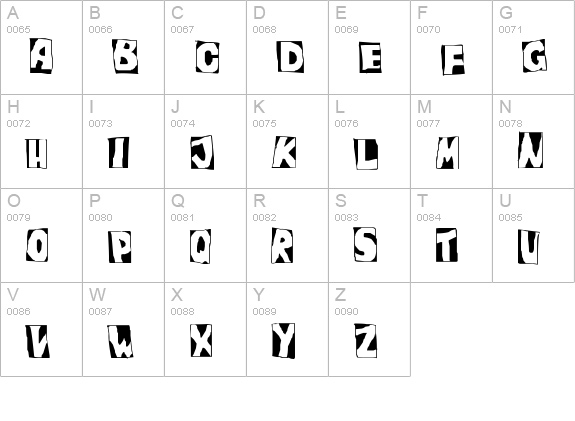
Peep Show Font Details
Introducing Peep Show, a captivating and versatile font that will bring a touch of whimsy to your designs. With its unique blend of playful curves and elegant strokes, this font is perfect for adding a hint of personality to any project. Peep Show is not just your ordinary font; it is a free font that offers endless possibilities. Whether you're designing a poster, creating a logo, or crafting an eye-catching social media post, this font will make your text stand out from the crowd. Inspired by the vibrant energy of carnival booths and circus tents, Peep Show captures the essence of fun and excitement in its letterforms. Its bold and confident appearance will instantly grab attention and create a lasting impression. What makes Peep Show even more remarkable is that it is freely available to download at FontsMarket.com. Say goodbye to expensive font licenses and hello to the freedom of creativity. Now, you can access this incredible font without any cost, allowing you to explore its full potential without breaking the bank. The versatility of Peep Show knows no bounds. Its wide range of glyphs and alternate characters make it easy to customize and adapt to any design style. Whether you prefer a clean and modern look or a vintage and retro vibe, this font has got you covered. So, why wait? Download Peep Show today from FontsMarket.com and embark on a typographic adventure like no other. Let your creativity run wild and bring your designs to life with this captivating and freely available font. Don't miss out on the opportunity to add a touch of magic to your projects. Get Peep Show now and unleash your imagination.